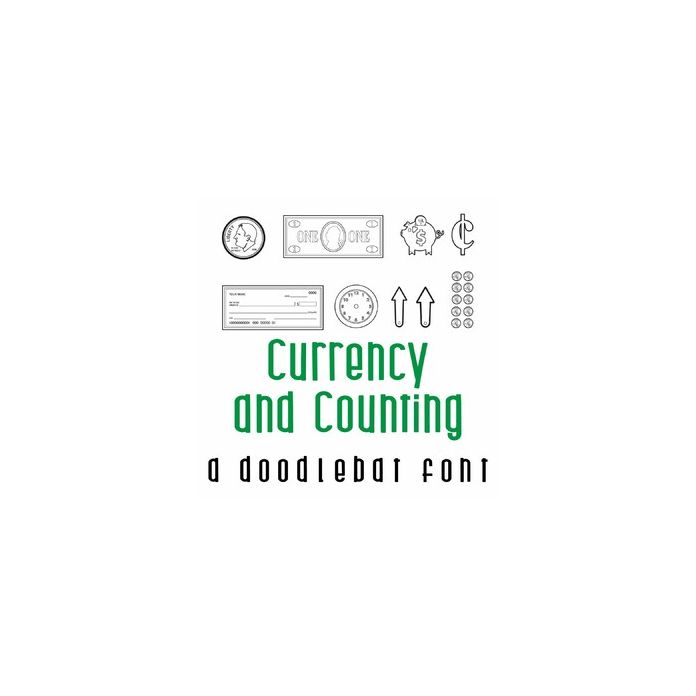
This fun full-color doodlebat font features 29 unique images for counting and currency. Perfect for classrooms, teaching, education, cards, crafts, gifts, scrapbook pages, planner stickers, and more! A-F are American coins, G-L are American bills, N-S are math/counting/clock related, T-Z plus brackets are repeats of 0-9, 0-9 represent object counting.